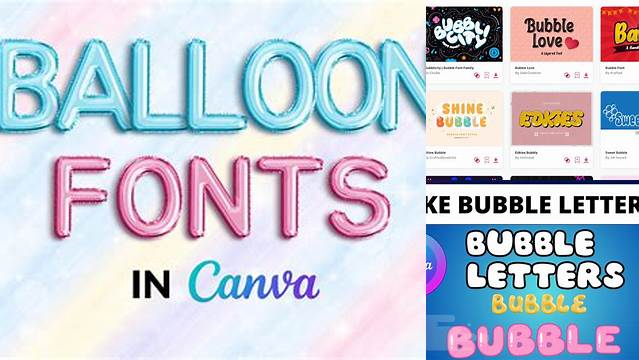
Create Amazing Bubble Fonts In Canva: A Beginner's Guide
Hey everyone! Today, we're diving into the super fun world of cute bubble fonts on Canva. Seriously, who doesn't love a bubbly, playful font? They're perfect for everything from birthday invitations to eye-catching social media posts. If you're looking to add a touch of personality and fun to your designs, then cute bubble fonts are your new best friends. Canva is a fantastic platform for creating stunning visuals, and incorporating these fonts is easier than you think. So, get ready to unleash your creativity and make your designs pop with some seriously adorable typography. Let's jump right in, shall we?
H2: Getting Started with Canva: Your Design Playground
H2: Finding the Perfect Bubble Font in Canva
Now for the fun part: finding the perfect bubble fonts to sprinkle some magic on your designs! Canva has a pretty extensive library of fonts, and while it might not have a dedicated "bubble font" category, don't worry – we can still find some amazing options that fit the bill. The trick is knowing where to look and how to identify those bubbly beauties. First things first, open your Canva design and click on the "Text" tool on the left-hand side. From there, you'll be able to add text to your design. Click on the text box, and you'll see a font selection dropdown menu at the top. This is where the magic happens! When the font menu appears, you can start browsing through the available fonts. Canva's font library is organized alphabetically, so you can scroll through the list. Keep an eye out for fonts that have a rounded, playful, or whimsical look. These are the ones that will likely resemble bubble fonts. Also, if you have a specific font in mind, you can simply type the name into the search bar. This is especially helpful if you've seen a bubble font elsewhere and want to recreate it in Canva.
Another cool trick is to use keywords in the search bar. Try searching for terms like "rounded," "chunky," or "comic" to see if any relevant fonts pop up. You can also experiment with different font styles, like handwritten or cartoon fonts, as these often have a bubble-like appearance. And, don't be afraid to experiment! Try out different fonts and see which ones best match your design aesthetic. The best way to find the perfect bubble font is to play around and explore the options available. In fact, it is a good idea to preview how the cute bubble fonts look. Canva allows you to type your text and preview it in various fonts before you actually apply it to your design, which is a huge time-saver.
H3: Identifying Bubble Font Characteristics
When you're on the hunt for cute bubble fonts, there are a few key characteristics to look out for. These traits will help you narrow down your search and find the perfect bubbly font for your project. Rounded shapes are a defining feature of bubble fonts. Look for fonts where the letters have curves and circular elements, as opposed to sharp angles or straight lines. This roundedness gives the font its characteristic "bubble" appearance. Thickness is another important factor. Bubble fonts often have thick strokes, giving them a bold and playful look. The thicker the strokes, the more "bubble-like" the font will appear. This thickness makes the font stand out and adds to its fun, lighthearted feel. Also, consider the overall style of the font. Is it handwritten, cartoonish, or more stylized? The style will influence the overall vibe of your design. Handwritten bubble fonts often have a more organic, personal feel, while cartoon fonts can add a touch of whimsy. When choosing a font, consider how its style will complement your overall design. Finally, pay attention to the spacing and kerning of the font. Kerning refers to the space between individual letters. Some bubble fonts have tighter kerning, which can create a more compact and visually appealing look. If you are using a bubble font for long passages of text, consider kerning or even making your font more spaced out for readability. Before applying a font to your design, it is wise to experiment with the kerning and spacing to achieve the desired look and feel. Don’t be afraid to explore, experiment, and find fonts that bring your visions to life.
H3: Using Canva's Search and Filter Options
Canva offers helpful search and filter options to streamline your hunt for cute bubble fonts. Once you're in the font menu, use the search bar to look for specific fonts or keywords. As mentioned earlier, terms like "rounded," "chunky," and "comic" can help you find relevant options. If you have a particular style in mind, the search bar is your friend. Canva also has filter options that can help you narrow down your search. While there isn't a dedicated "bubble font" filter, you can still use the existing filters to your advantage. For example, you can filter by font style, such as "handwriting" or "display," which can help you discover fonts with a similar aesthetic to bubble fonts. You may also filter by weight, choosing "bold" or "extra bold" to find fonts with thicker strokes. These filters may not be perfect, but they can help you get closer to your goal.
And remember, you can always combine search terms with filter options to refine your search. For example, you can search for "rounded" and then apply the "handwriting" filter. This combination will give you a more targeted search. Don't be afraid to experiment with different combinations of search terms and filters to find the perfect bubble font for your project. Canva's search and filter options may not be perfect, but they can definitely help you save time and effort in your font search. The more you use these tools, the better you'll become at finding the fonts you need. So, embrace the search and filter features, and get ready to discover some amazing fonts that will make your designs shine. The important thing is to be creative and have fun. And you never know, you might stumble upon a hidden gem or discover a new favorite font. And remember, the cute bubble fonts are waiting for you!
H2: Modifying and Customizing Your Bubble Fonts
Once you've chosen your cute bubble fonts, the fun doesn't stop there. Canva offers a range of customization options to make those fonts truly your own. One of the most basic things you can do is change the font size, color, and style. Simply select your text box and use the tools in the top toolbar to adjust these elements. Experiment with different font sizes to find the perfect balance for your design. Changing the color of your text is also crucial to make it stand out and align with your overall design aesthetic. Canva provides a wide range of color options, including a color wheel, predefined color palettes, and the ability to enter specific hex codes. When it comes to style, you can apply bold, italic, and underline formatting to your text. These options can help you emphasize certain words or phrases and add visual interest to your design. It's a good idea to try out different combinations to see what looks best.
Beyond the basics, Canva has other features for more advanced customization. Spacing is an important aspect of customization. You can adjust the spacing between letters (kerning), lines (line height), and paragraphs (paragraph spacing) to fine-tune the appearance of your text. Tweak these settings until you achieve the perfect balance of readability and visual appeal. Another cool feature is the ability to add effects to your text. Click on the "Effects" button in the top toolbar to access a range of options, such as shadow, outline, and neon effects. These effects can add depth and dimension to your text and make it even more eye-catching. Be careful not to overdo it, though – sometimes, less is more! Additionally, you can use Canva's alignment tools to position your text within your design. Choose from left, center, right, or justify alignment to create a clean and organized layout.
H2: Conclusion: Unleash Your Inner Bubble Font Designer
And there you have it, guys! You're now armed with the knowledge and inspiration to create amazing designs using cute bubble fonts in Canva. From finding the perfect font to customizing it, designing eye-catching visuals, and avoiding common design mistakes, you've got the tools you need to bring your creative visions to life. Remember, the most important thing is to have fun and let your creativity run wild. Experiment with different fonts, colors, layouts, and effects until you find what works best for your project. There are no limits! So, go forth and create designs that are as unique and playful as you are. And don't forget to share your creations with the world! We can't wait to see what you come up with. Happy designing!